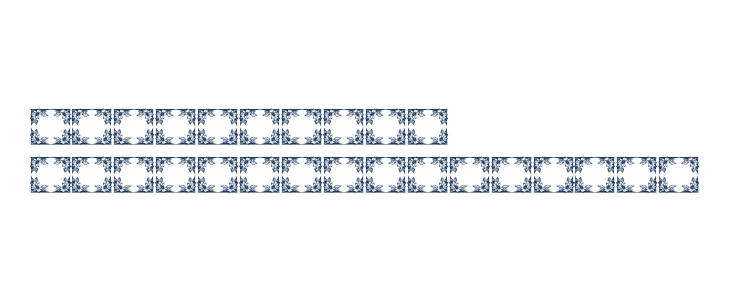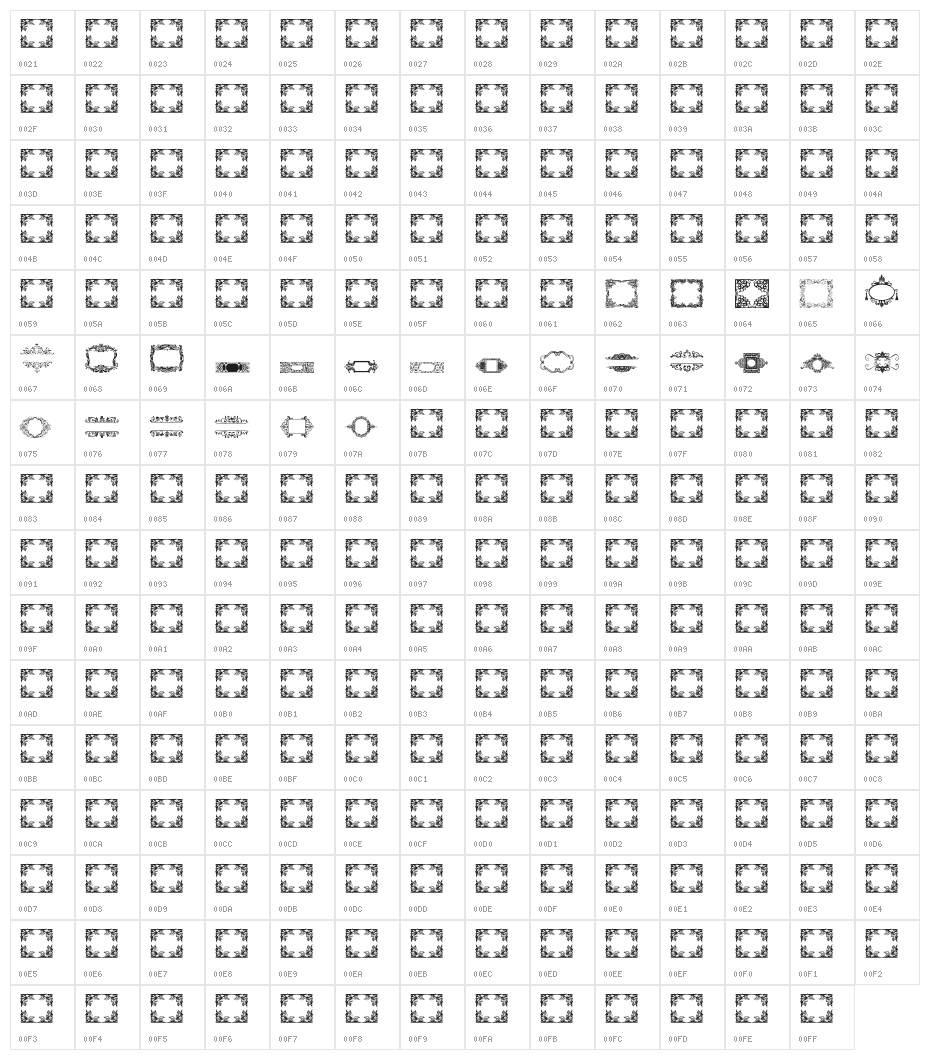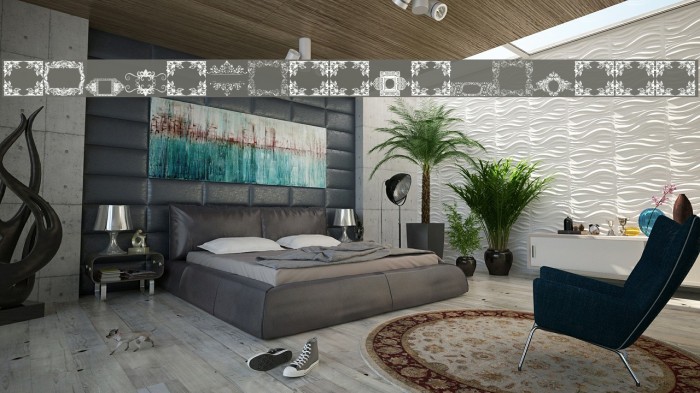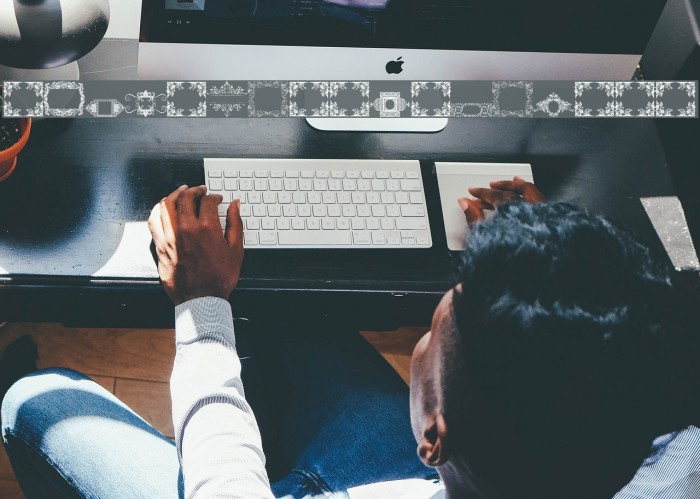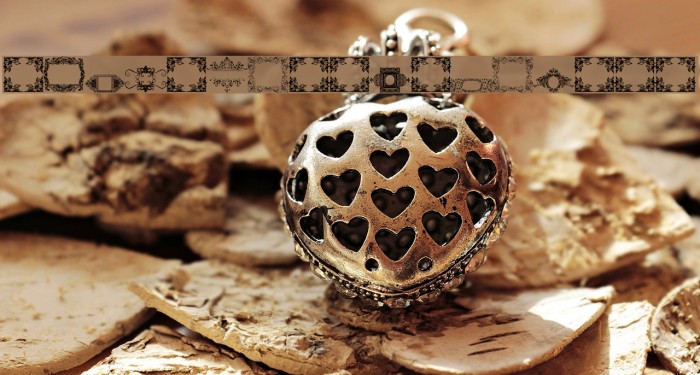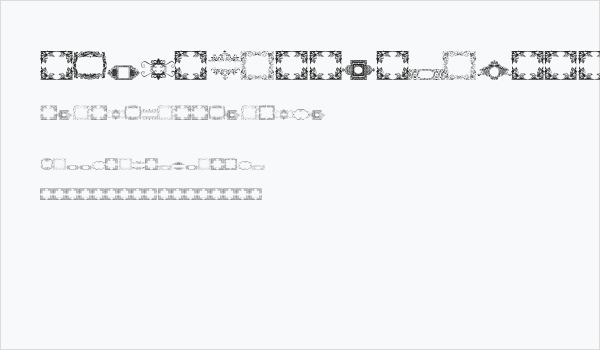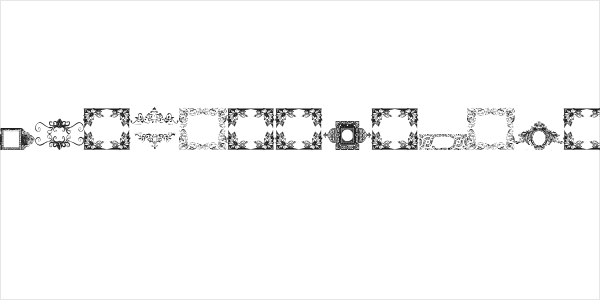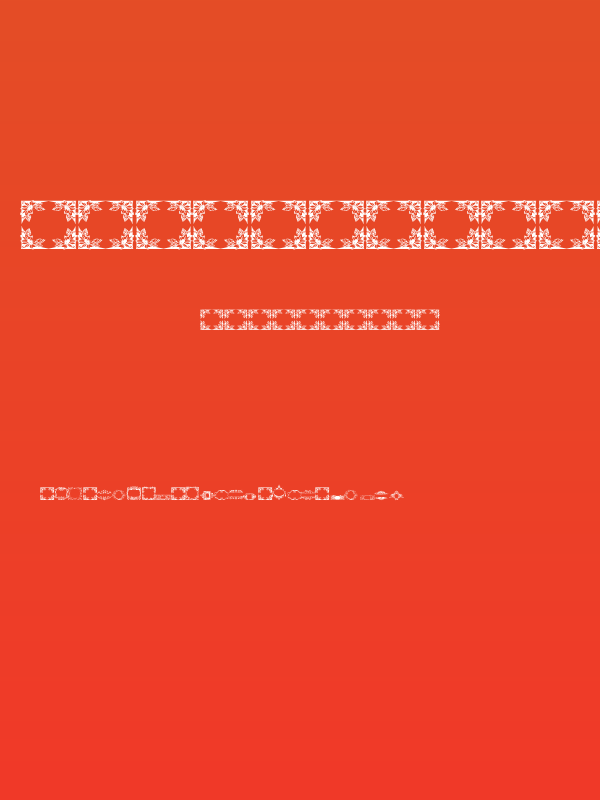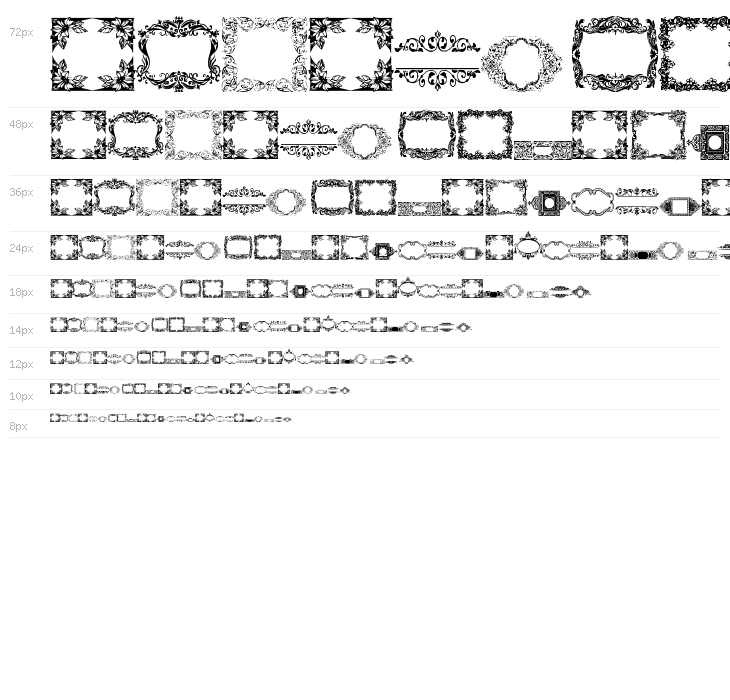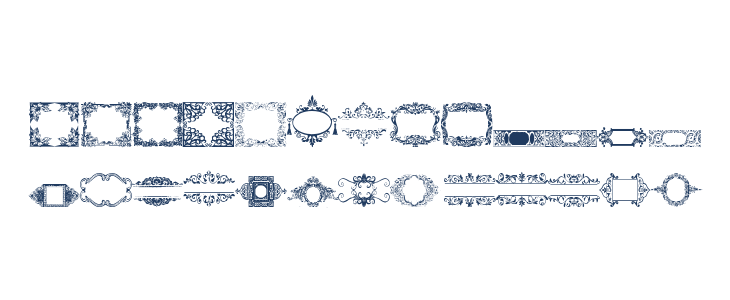
Vintage Frames 12 Font
Vintage Frames 12 Description
A collection of highly ornate, decorative vintage frames and borders featuring intricate floral and scrollwork patterns. The designs are symmetrical and detailed, evoking a classic, antique aesthetic suitable for embellishing documents or artwork.
| Overall Style | Vintage, Decorative, Classic |
| Use Case | Borders, Frames, Decorative elements |
| Proposed Projects | Wedding invitations, certificates, decorative labels, vintage posters, scrapbooking, packaging design. |